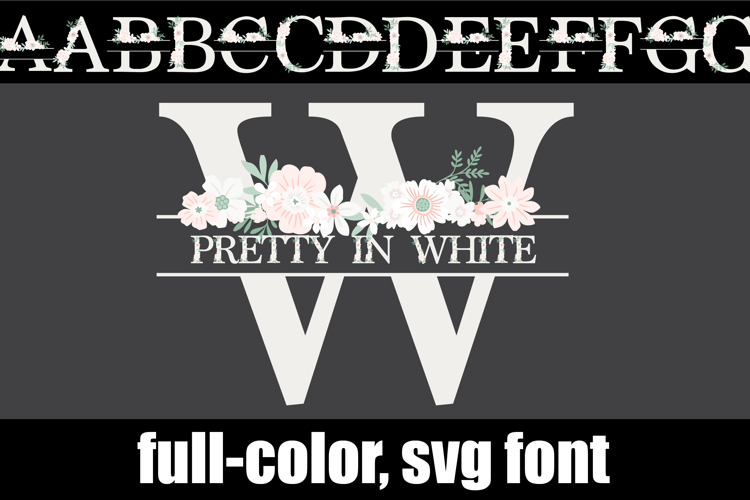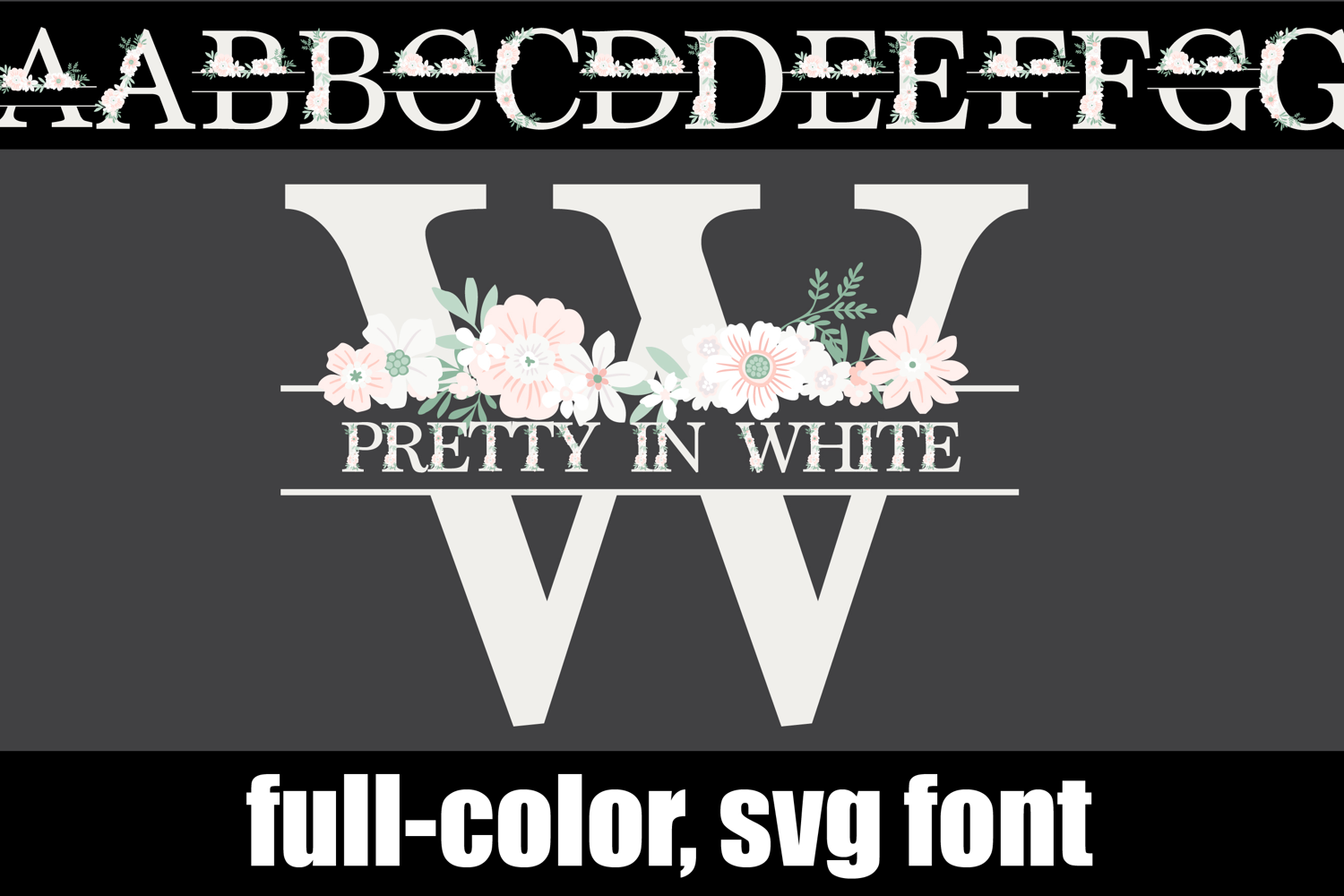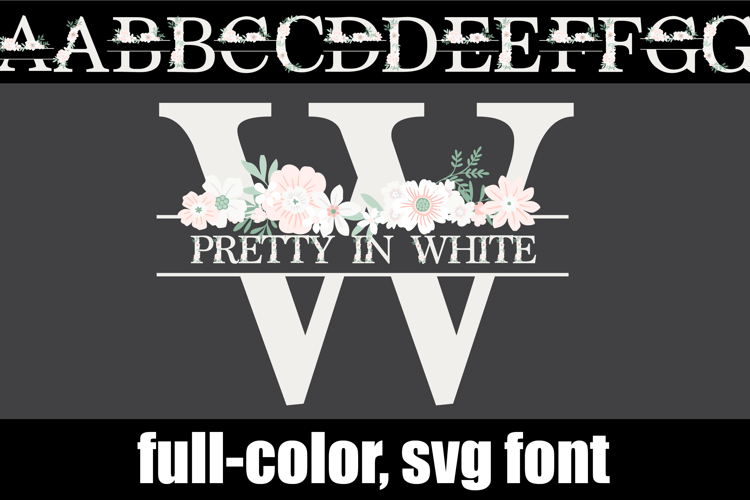
Pretty in White Monogram Color Font
This full-color, serif font is in a pale color palette with beautiful florals throughout. To use this monogram, type the initial letter in uppercase. Then type the full name in lowercase and use a layout program to pull the two items together for the perfect monogram banner. There is an alt case of additional colors of each letter that you can access through your system's character map.